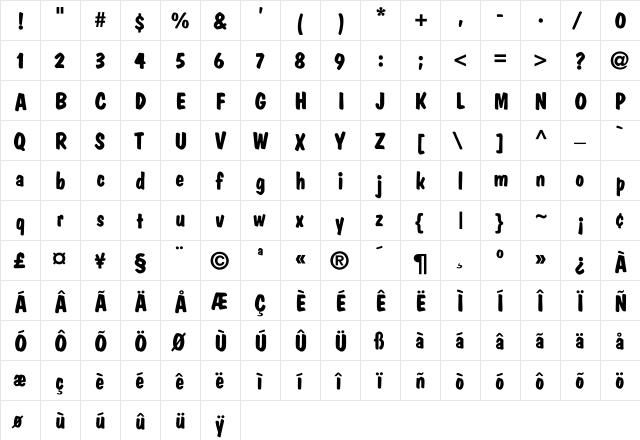
Relax-Bold Regular
Design Context for Relax-Bold Typeface
Relax-Bold is a composed and adaptable typeface that performs quietly and consistently across a wide range of design contexts. Its bold stroke weight gives it real presence on the page.
Pro Tip: Use Relax-Bold in both headline and body roles to test its range before committing to a single application.